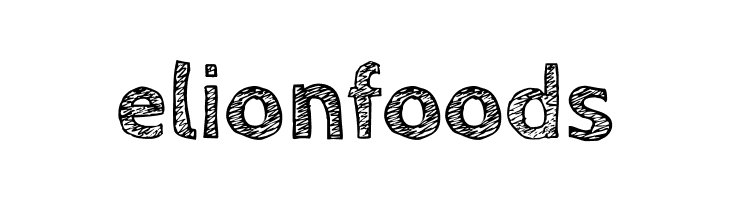
A modern, clean, and slightly italic typeface with excellent readability.
A playful, sketch-like font with bold, textured strokes and a hand-drawn appearance.
A playful, hand-drawn font with a sketch-like, textured appearance.
A modern, italic sans-serif font with a clean and dynamic appearance.
A modern, geometric sans-serif font with balanced proportions and a professional appearance.
A bold, expressive script font with a dynamic, hand-drawn style.
A bold, hand-drawn font with a sketch-like, textured appearance.
A playful, hand-drawn font with a sketch-like, textured appearance.
A bold, geometric font with an industrial, cable-like design.